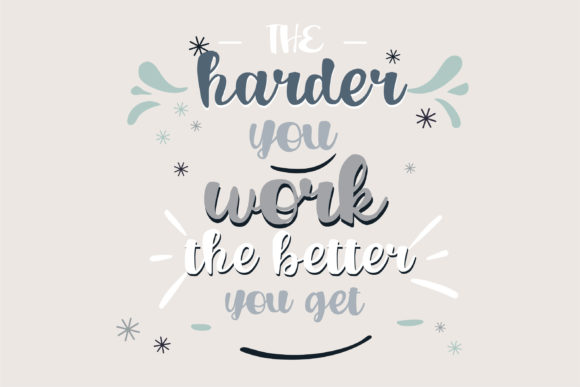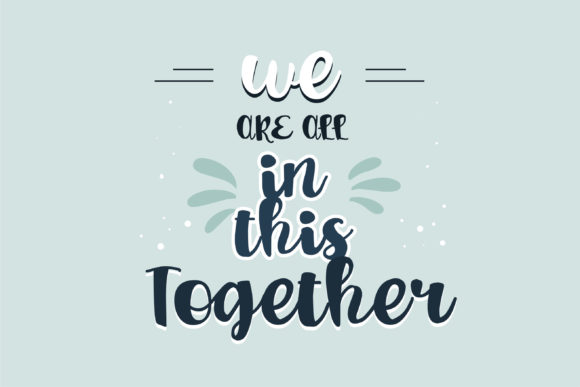
PN Octothorp Font
db-ku.com - Script & Handwritten -- PN Octothorp is a trendy and whimsical script font. Its informal style and casual vibe will make this font a go-to choice for each of the creations that require a relaxed touch.